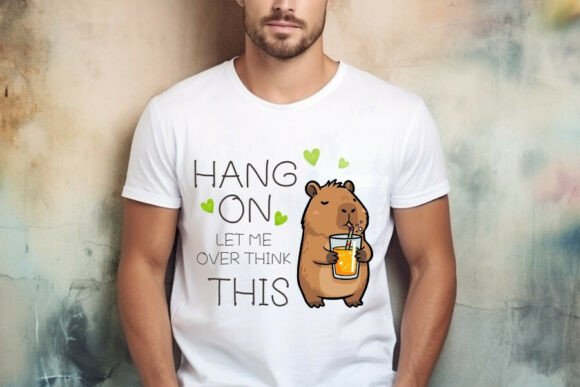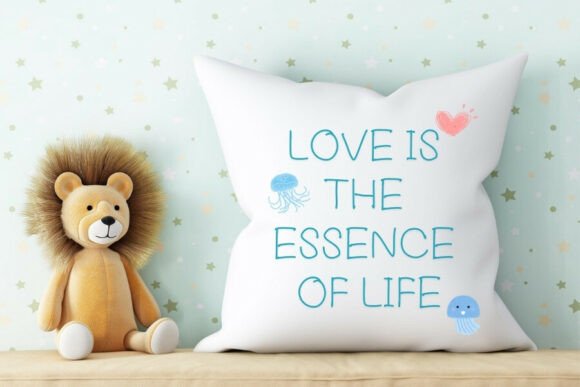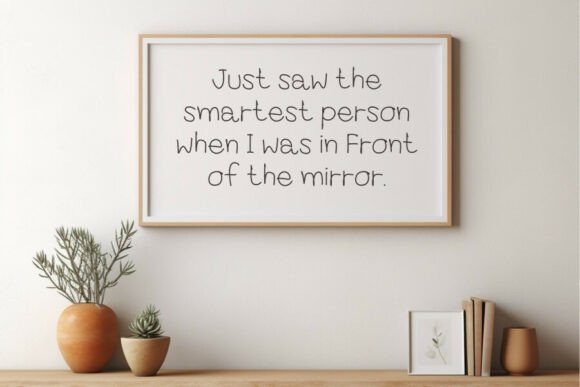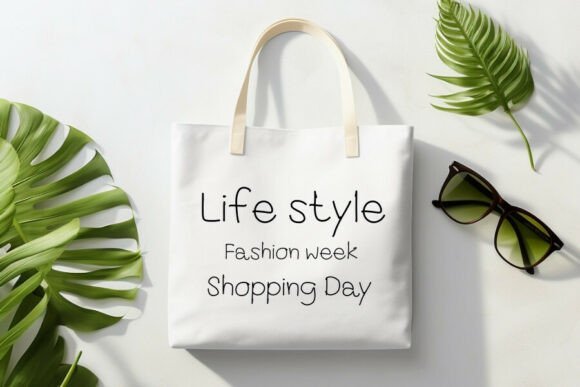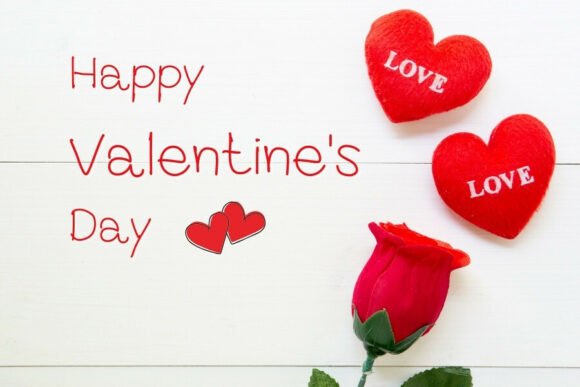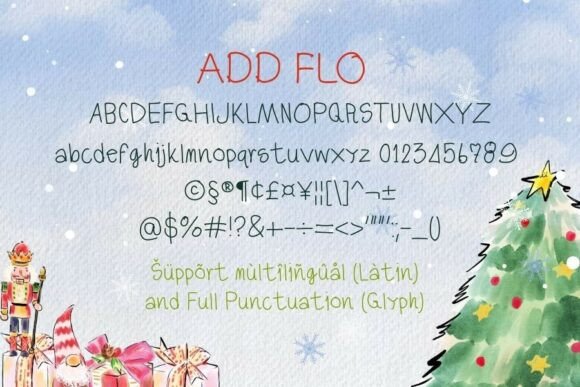
Introduction to Add Flo Font
Add FLo is designed in a cute, quirky, and modern handwritten font.
It would be perfect for your diary planners, wedding invitations, thank you cards, quotes, greeting cards, logos, posters, blogs, bags, and more .
Key Features of Add Flo Font
Why Choose Add Flo Font?